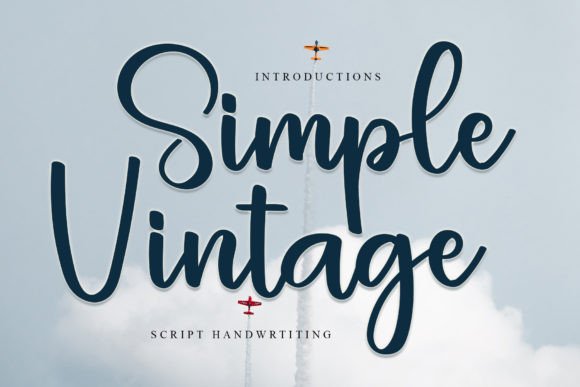
Journey through the captivating world of Simple Vintage Font, a mesmerizing handwritten font that dances with elegance and charm. Crafted by the talented team at Protype Studio, this script font exudes a casual flair that effortlessly elevates your designs. Immerse yourself in the nostalgic allure of Simple Vintage, a font that whispers tales of yesteryears with its timeless beauty.
Unleash your creativity and let Simple Vintage weave its magic across a myriad of projects. From crafting heartfelt greeting cards to designing eye-catching headlines, this versatile font seamlessly adapts to your vision. Its natural, unassuming presence lends a touch of simplicity and authenticity to any project, leaving a lasting impression that resonates with your audience.
Discover the endless possibilities that await with Simple Vintage. Let your imagination run wild as you explore the depths of its versatility. Whether you're designing logos, creating social media graphics, or crafting beautiful wedding invitations, this font seamlessly blends with your creative vision, adding a touch of elegance and sophistication.
Embrace the timeless appeal of Simple Vintage and watch as your designs transform into captivating works of art. Its ability to evoke emotions and create a lasting connection with your audience is truly remarkable. With every stroke of this enchanting font, you'll leave an indelible mark on the hearts and minds of those who encounter your creations.
Unlock the power of Simple Vintage today and embark on a creative adventure like never before. Let its charm captivate your audience, leaving them spellbound by the beauty and elegance that only this font can deliver. Experience the magic of Simple Vintage and witness the transformation of your designs into masterpieces that transcend time.